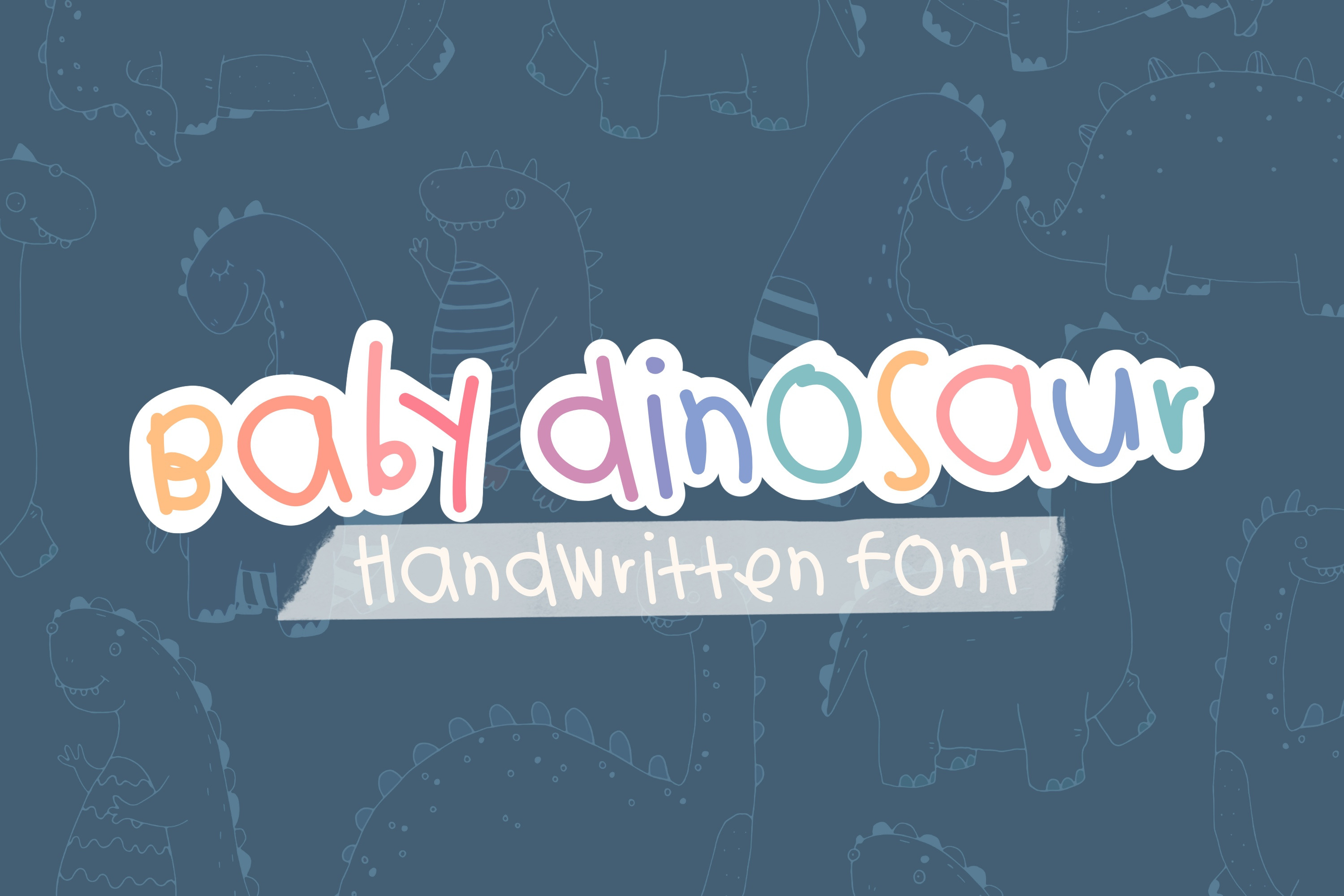
Baby Dinosaur kids handwriting font
Baby Dinosaur, a funny and quirky kid handwritten font (English only). You can use this font in various projects - blog posts, digital planner, invitations, greeting cards, planners, photo albums, decorations and much more. Thank you :)